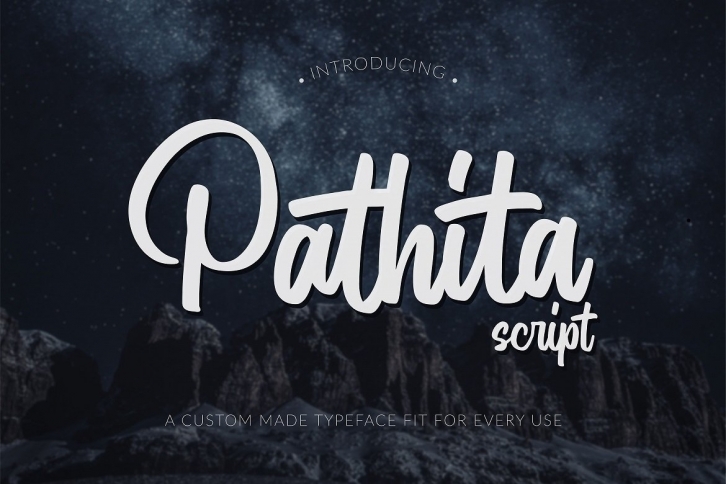
Pathita is a great font that was designed by Graphue. Imagine the amount of combinations you can create using this font! The archive is 1.1 MB and it was released on July 16, 2020. Pathita looks beautiful on wedding invitations, greeting cards, logos, posters, labels, t-shirt designs, logos, business cards and is perfect for use in ink or watercolor works, fashion, magazines, packaging and food menus, children's books and more!